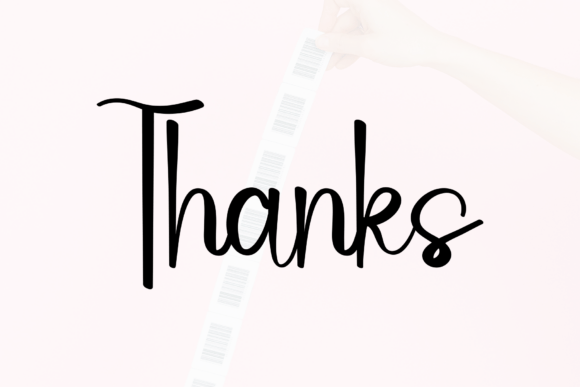
Introduction to Living Valentine Font
As a designer, there’s nothing quite like that moment when a project comes together – the perfect combination of colors, textures, and typography that leaves you feeling proud and inspired. For me, it’s often the smallest details that make the biggest impact, and a beautiful font is always at the top of my list. That’s why I’m excited to share with you one of my latest discoveries: the stunning Living Valentine Font.
With its playful, handwritten style and characters that dance along the baseline, this font is the perfect addition to any creative project. Whether you’re designing a wedding invitation, a birthday card, or a social media post, the Living Valentine Font will add a touch of warmth and personality to your design. And the best part? It’s a free download, so you can get creative without breaking the bank.
Key Features of Living Valentine Font
- High-quality, elegant script font suitable for various design applications, including wedding invitations, greeting cards, and more.
- Unique characteristics include flowing connections, subtle flourishes, and delicate lines, making it perfect for adding a touch of romance to your design.
- Can be used as a standalone font or layered with other design elements to create a stunning visual effect.
Honest Review: Living Valentine Font
I recently stumbled upon the Living Valentine Font while searching for a unique design resource for a creative project. The font caught my eye with its playful and romantic vibe, perfect for a wedding invitation or Valentine’s Day design.
What works well about the Living Valentine Font is its high quality and attention to detail. The font is available for free download, which is a major plus for designers on a budget. The transparent background also makes it easy to customize and combine with other design elements. ✨
Some of the key features of the Living Valentine Font include:
- Unique and playful letterforms
- High-quality design and attention to detail
However, I did encounter some limitations with the Living Valentine Font. ⚠️ The font is not suitable for large blocks of text, and the letterforms can become cluttered and difficult to read. Additionally, the font may not be compatible with all operating systems or software.
Overall, I would recommend the Living Valentine Font for designers working on a creative project that requires a unique and playful touch. While it may have some limitations, the font’s high quality and attention to detail make it a valuable design resource.
The Living Valentine Font is perfect for creating Valentine’s Day cards, gift tags, and other creative projects. Its transparent background makes it easy to use in combination with other design elements. With its high quality and free download option, it’s a great design resource for anyone looking to add a touch of love to their designs.